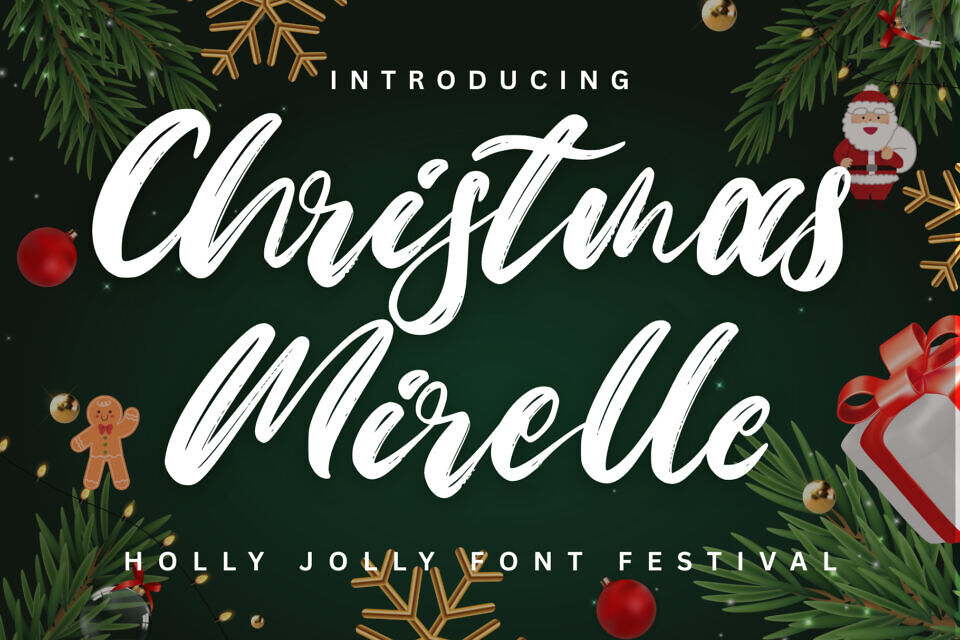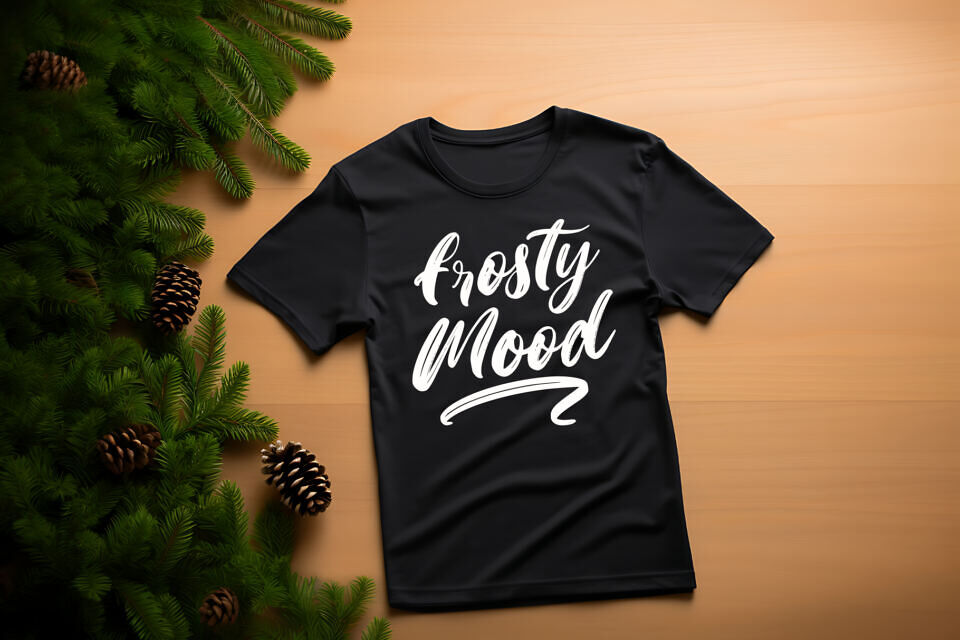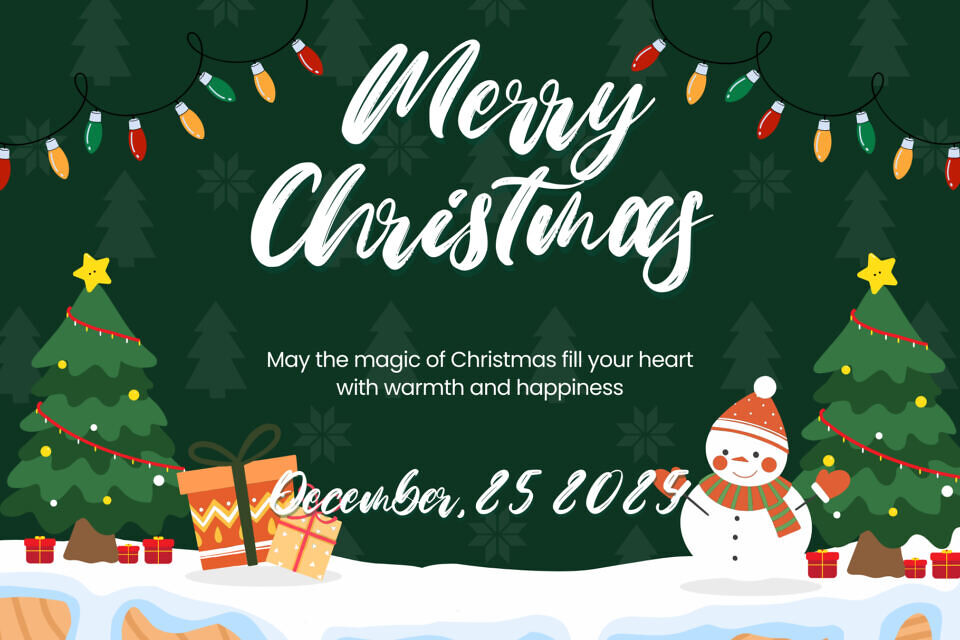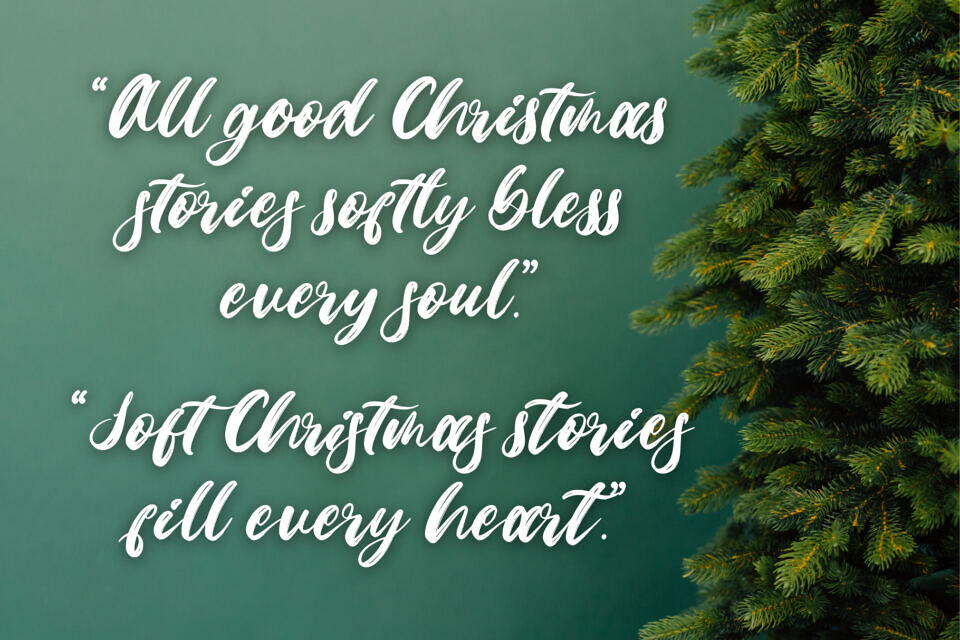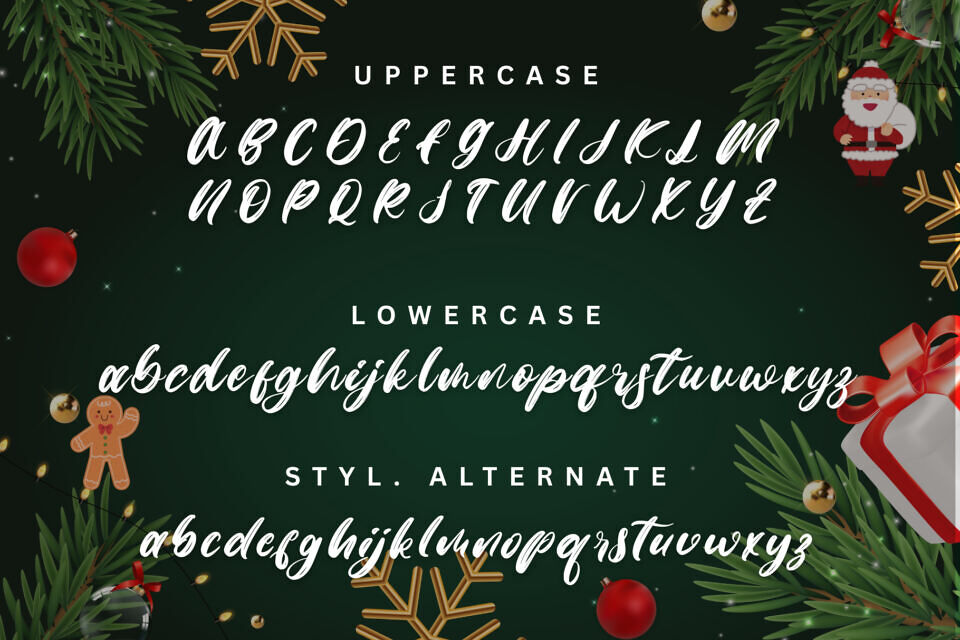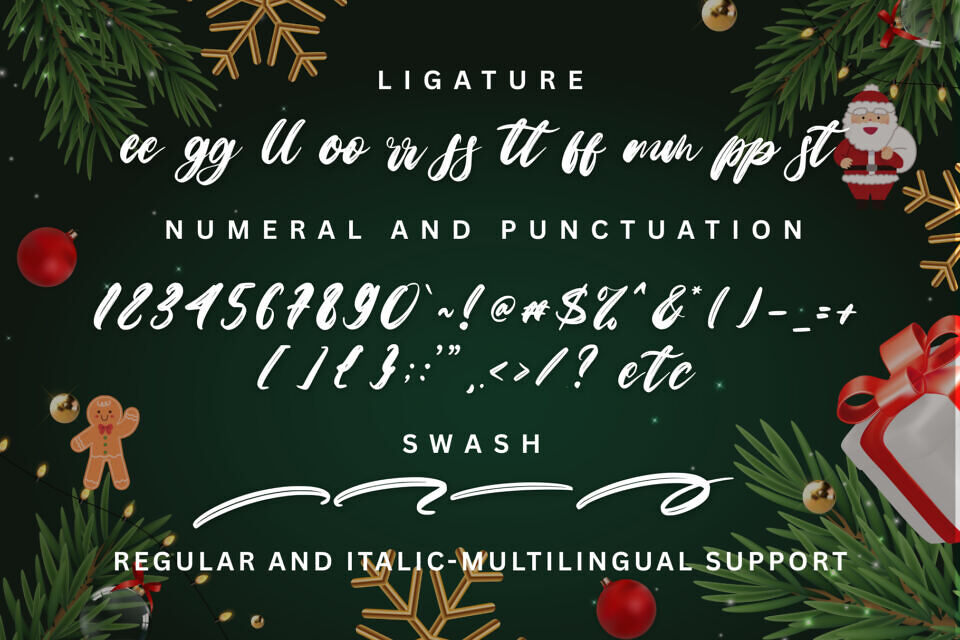
Immerse yourself in the holiday spirit with Christmas Mirelle, a festive brush script font exuding warm, yuletide cheer. Handcrafted with elegantly smooth strokes, this font boasts the authentic appeal of natural texture.
Beautiful ligatures including ‘ee’, ‘gg’, ‘ll’, ‘oo’, ‘rr’, ‘ss’, ‘tt’, ‘pp’, ‘ff’ lend an upscale style to any word. Christmas Mirelle offers a comprehensive tool kit that includes uppercase, lowercase, alternates, swashes, numbers, and punctuation, coupled with multilingual support.
It’s the perfect choice for infusing seasonal magic into your Christmas cards, gift tags, social media posts, invitations, stickers, packaging and any design evoking the holiday charm.